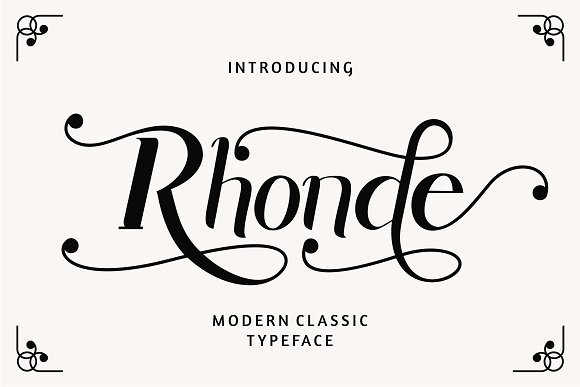
Rhonde Modern Typeface
Introducing Rhonde Font. Rhonde is a modern classic typeface with large set of alternative uppercase and lowercase letters with swashes that can be combined to create unique and beautiful designs. This typeface is great for logos, tittle, headline, tagline, tshirt, handwritten quotes, product packaging, poster, merchandise, social media, labels, branding, greeting cards, etc.